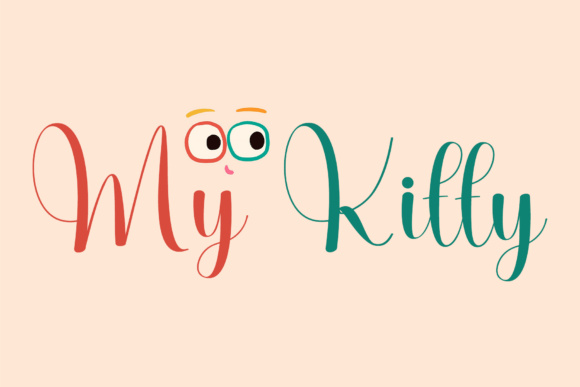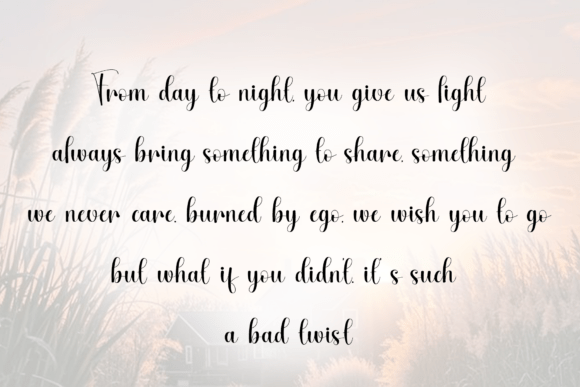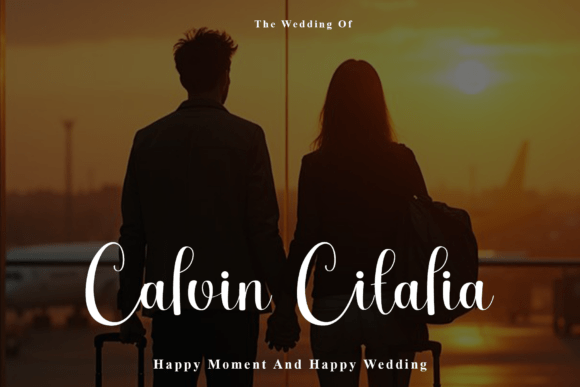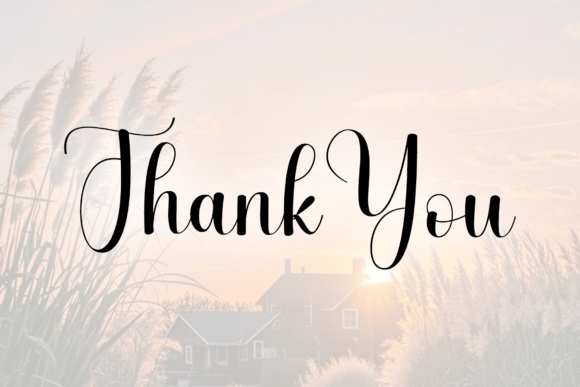
Introduction to Cristy Birthday Font
Have you ever stared at a beautifully designed birthday card, mesmerized by the elegant script and the way it seems to dance across the page? For many designers, moments like these spark inspiration and set the creative wheels in motion. One such font that captures the essence of this moment is the Cristy Birthday Font – a sophisticated and rhythmic script font that embodies the perfect blend of calligraphy and organic charm.
As a valuable resource for designers, the Cristy Birthday Font offers a unique opportunity to elevate creative projects with high-quality, artisanal flair. Whether you’re working on a boutique product packaging design or an upscale lifestyle marketing campaign, this font is sure to make your designs stand out. With its customizable and transparent background options available for free download, it’s no wonder why the Cristy Birthday Font has become a go-to design resource for creatives worldwide.
Key Features of Cristy Birthday Font
- Cristy Birthday Font is designed to be highly legible, with a clear and crisp appearance at resolutions up to 300 DPI.
- Its unique, playful design makes it an excellent choice for birthday invitations, party decorations, and other celebratory materials.
- The font is available in a single size, but its versatility and customizability make it suitable for a wide range of applications.
- Cristy Birthday Font is a valuable addition to any designer’s collection, offering a creative and effective solution for various design projects.
Honest Review: Cristy Birthday Font
Here are some of the key features that I love about the Cristy Birthday Font:
Limitations: ⚠️ One potential drawback of the Cristy Birthday Font is that it’s only available in a single weight (bold). This may not be suitable for projects that require a lighter or heavier font weight.
Overall, I’m impressed with the Cristy Birthday Font and would definitely recommend it to designers looking for a fun and playful font for their next project.
Tips for Getting the Most Out of Cristy Birthday Font
To get the most out of the Cristy Birthday Font, use it in conjunction with other high-quality design elements. Experiment with different font sizes, colors, and styles to create a visually appealing design. This font is particularly useful for creative projects that require a touch of elegance and sophistication.
The Cristy Birthday Font is commonly used in birthday invitations, party decorations, and other celebratory materials. Its high-quality design and free download status make it a popular choice among designers and non-designers alike.